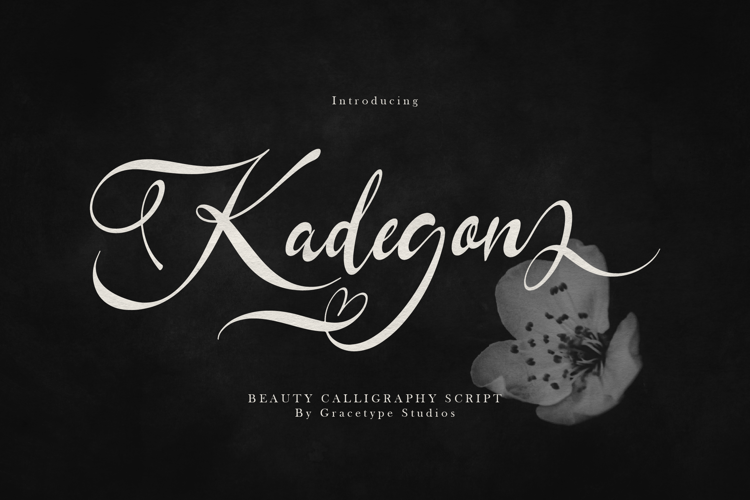
Kadegon Font
Kadegon | Beauty Calligraphy Script, is suitable for any projects such as: logos, branding projects, homeware designs, product packaging, mugs, quotes, posters, shopping bags, t-shirts, book covers, name card, invitation cards, greeting cards, label, photography, watermark, special events, and all your other lovely projects that need a Script taste.